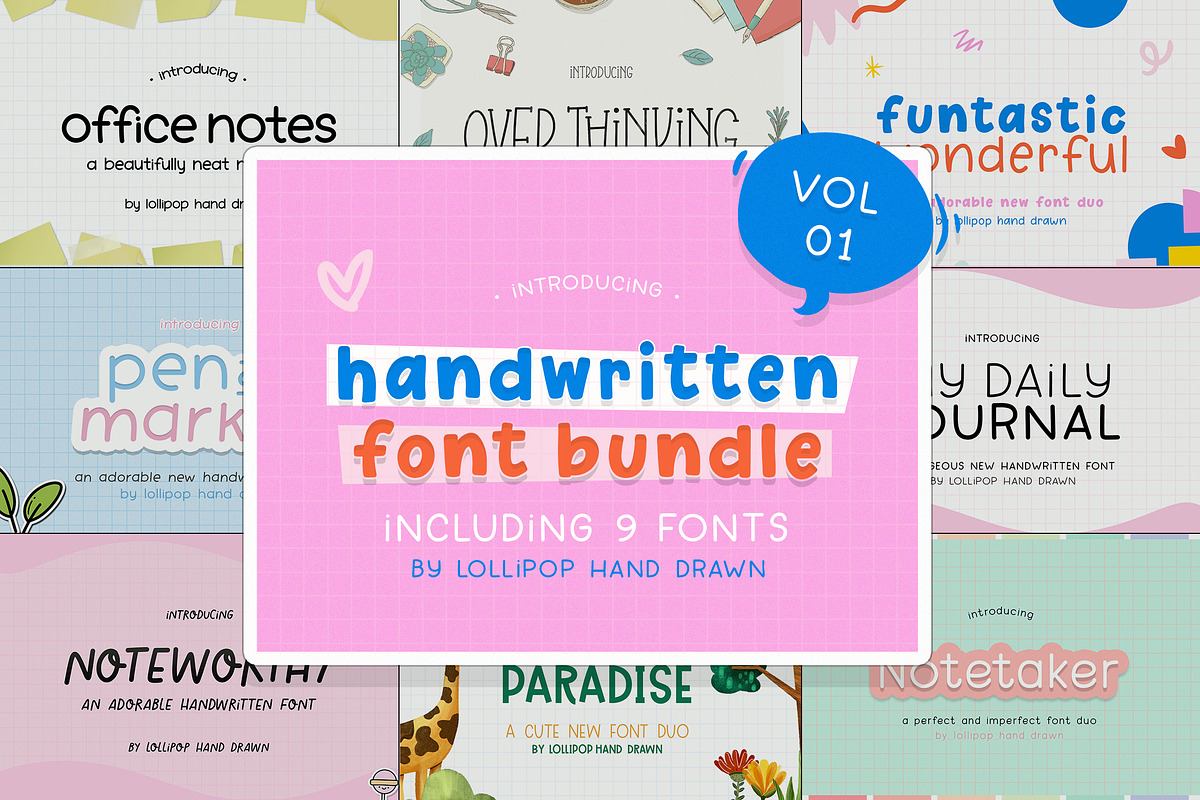
Handwritten Font Bundle (Vol 01) Free Download
Please note, to use these fonts for commercial purposes, you must purchase the full version. The Handwritten Font Bundle (Vol 01) is a diverse collection of beautifully crafted handwritten fonts, perfect for adding a personal and creative touch to your designs. This bundle includes a variety of script and sans-serif styles, ideal for logos, invitations, branding, social media, and more. Whether you're designing for a personal project, a fun event, or a trendy brand, these fonts offer the perfect blend of uniqueness and elegance. Test it out and enjoy free download access for personal use. Explore the full potential of Handwritten Font Bundle (Vol 01) Free Download before purchasing the commercial license. Add a charming, handwritten style to your designs with this exclusive font bundle.